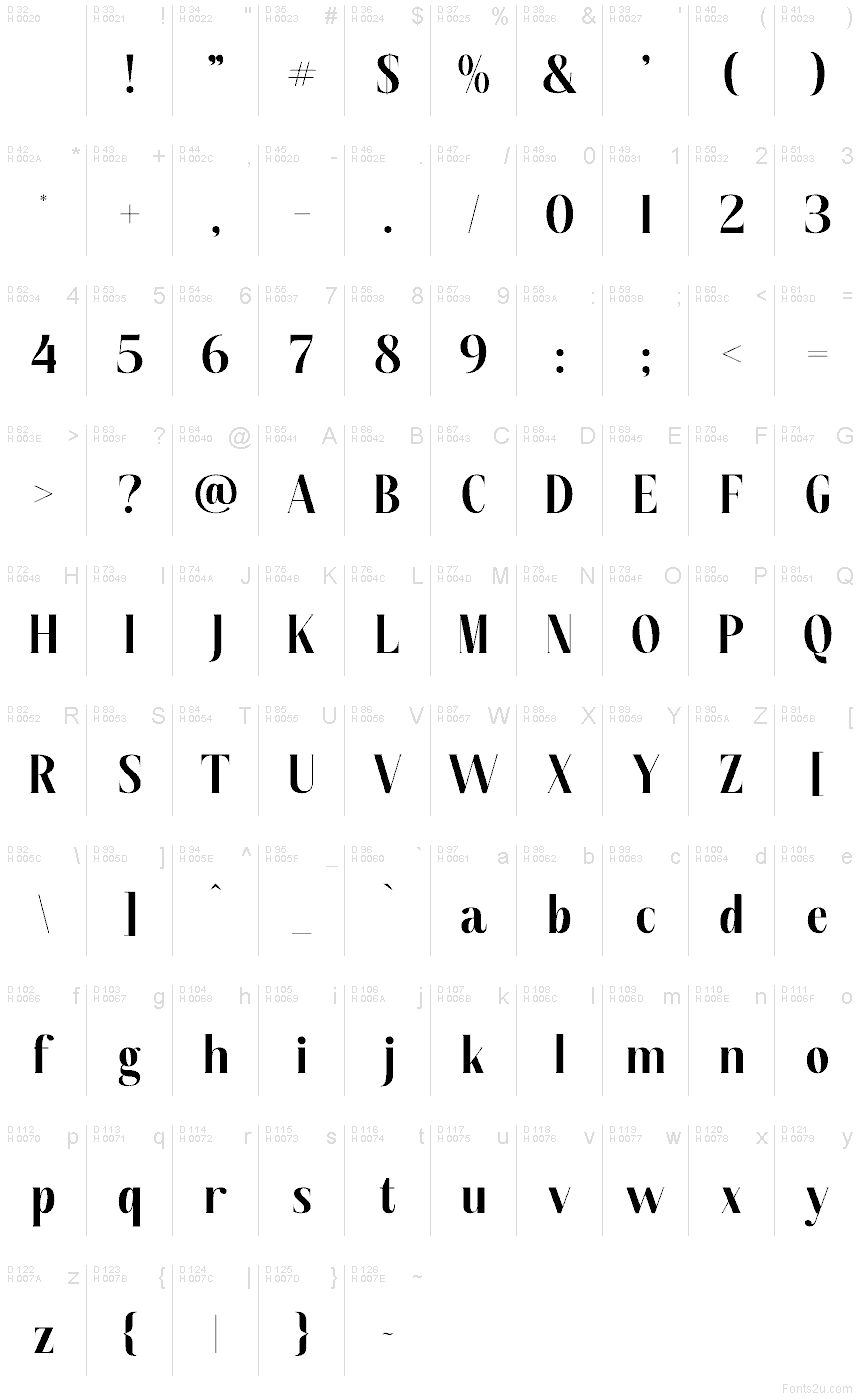
Semiflora
Semiflora font by Storytype Studio is a sophisticated serif typeface with high-contrast elements and refined aesthetics. Balancing classic elegance with a modern flair, each letter showcases an artistic quality that makes the font as capable for titles as it is for body text. This free serif font speaks of high style and great taste.
Use Semiflora in advertisement designs, fashion magazines, catalogs, movies or series posters, invitations, menus for high-end restaurants or hotels, business cards design.